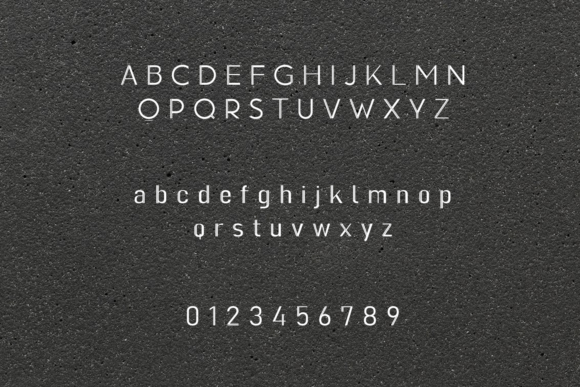
Introduction to Matrock Font
So, what makes the Matrock Font so special? For starters, its intricate details and clean lines make it the perfect addition to any design. Whether you’re creating a logo, poster, or social media graphic, the Matrock Font is sure to bring a level of professionalism and style to your work.
Key Features of Matrock Font
- Designed with a clean and modern aesthetic, suitable for various design applications
Honest Review: Matrock Font
- High-quality design: The Matrock Font is well-crafted, with clean lines and a clear, easy-to-read format.
Matrock Font